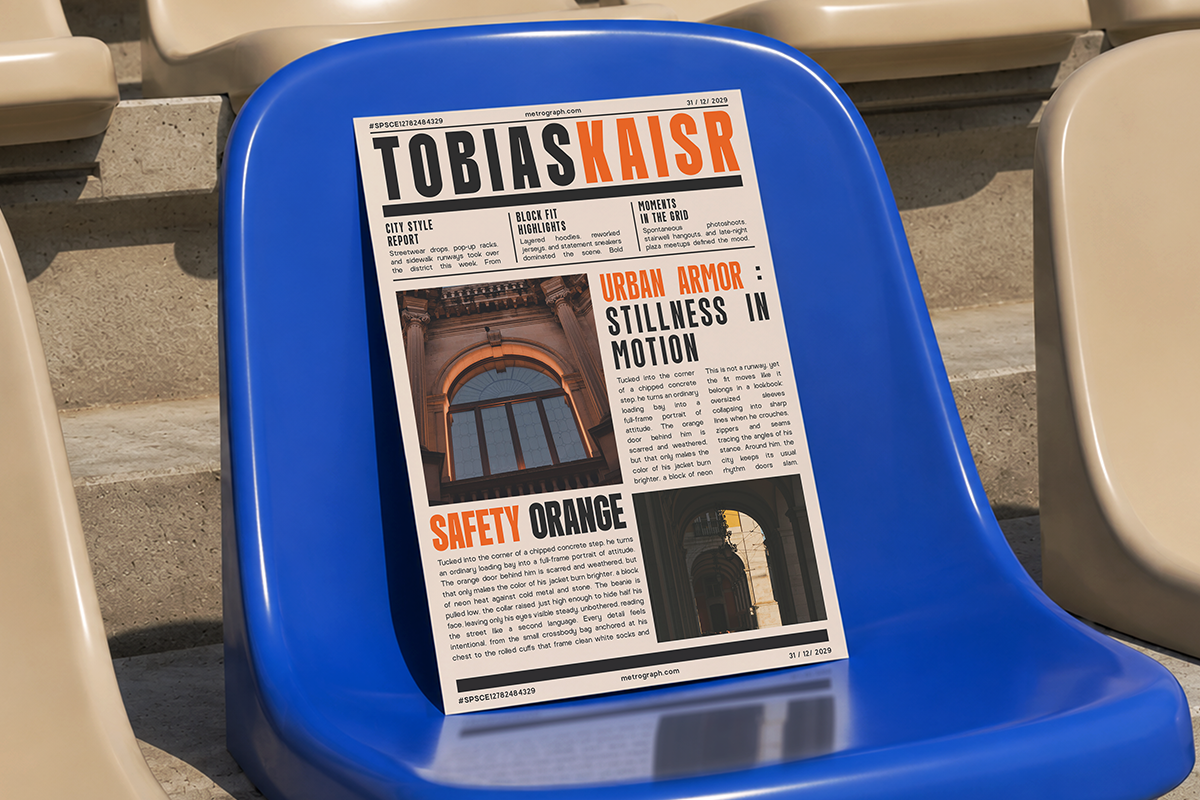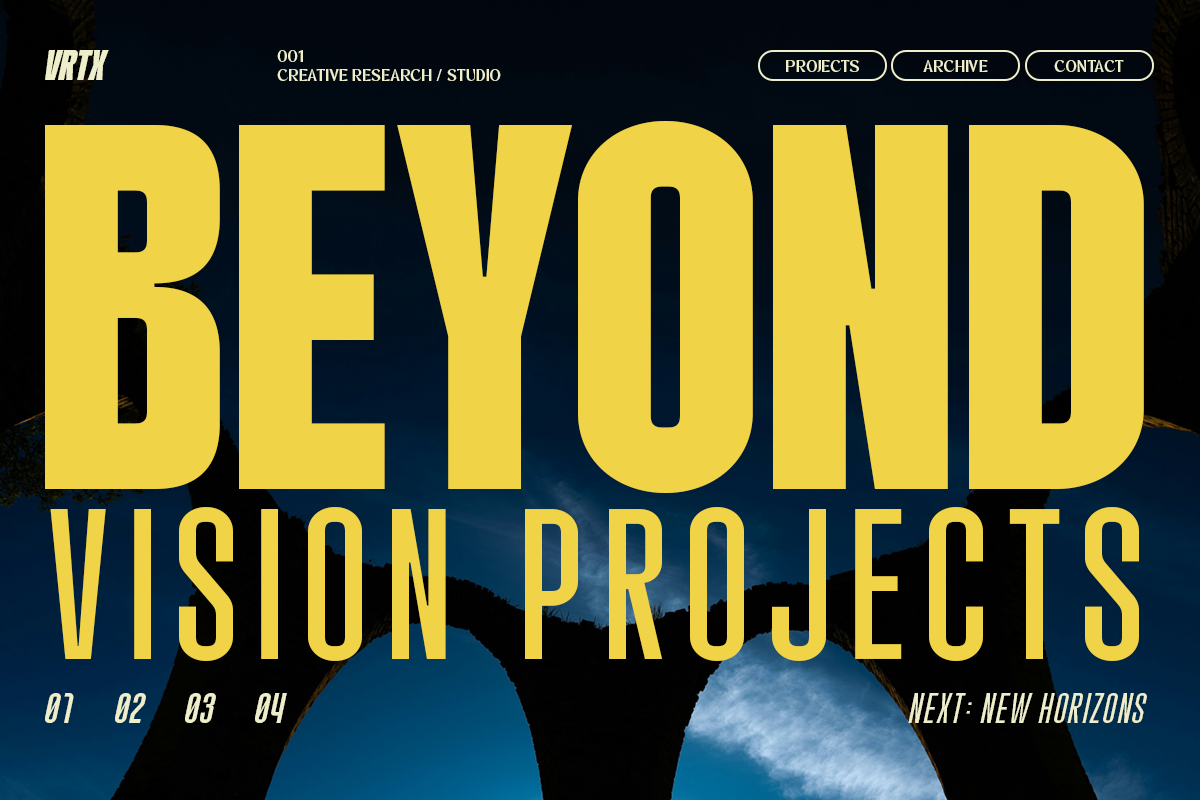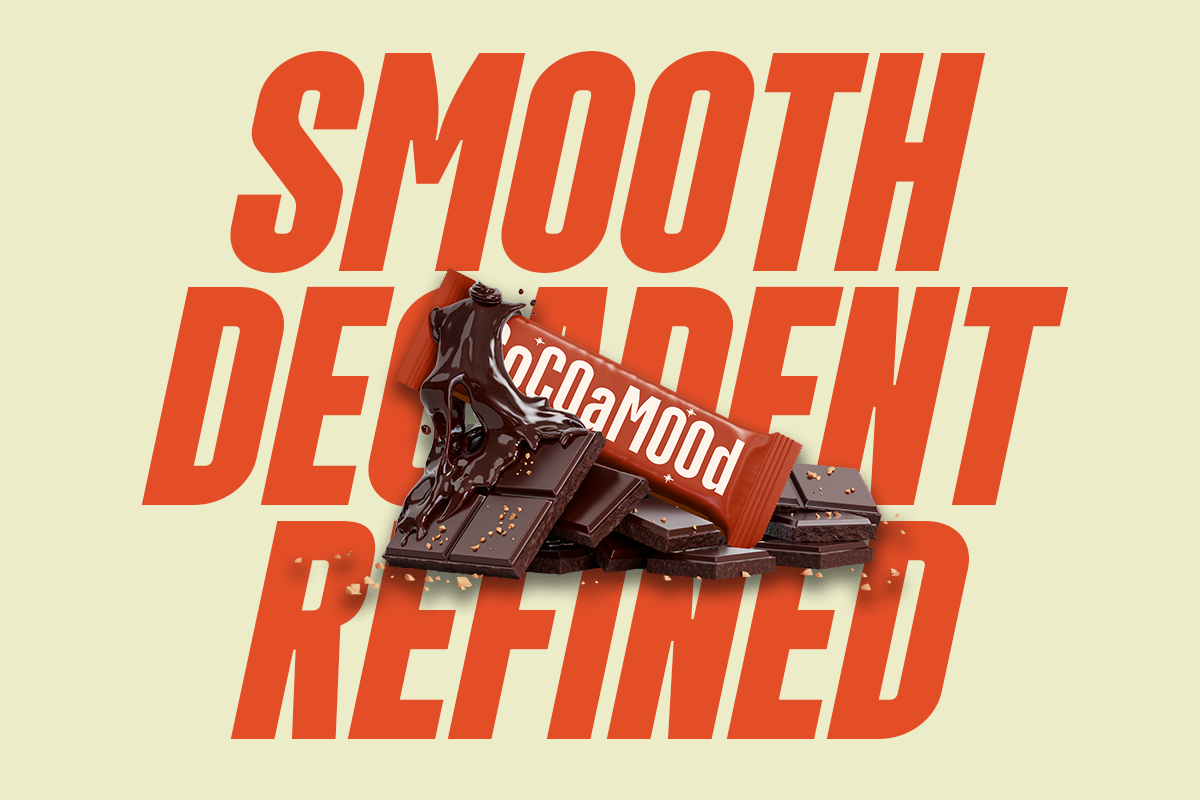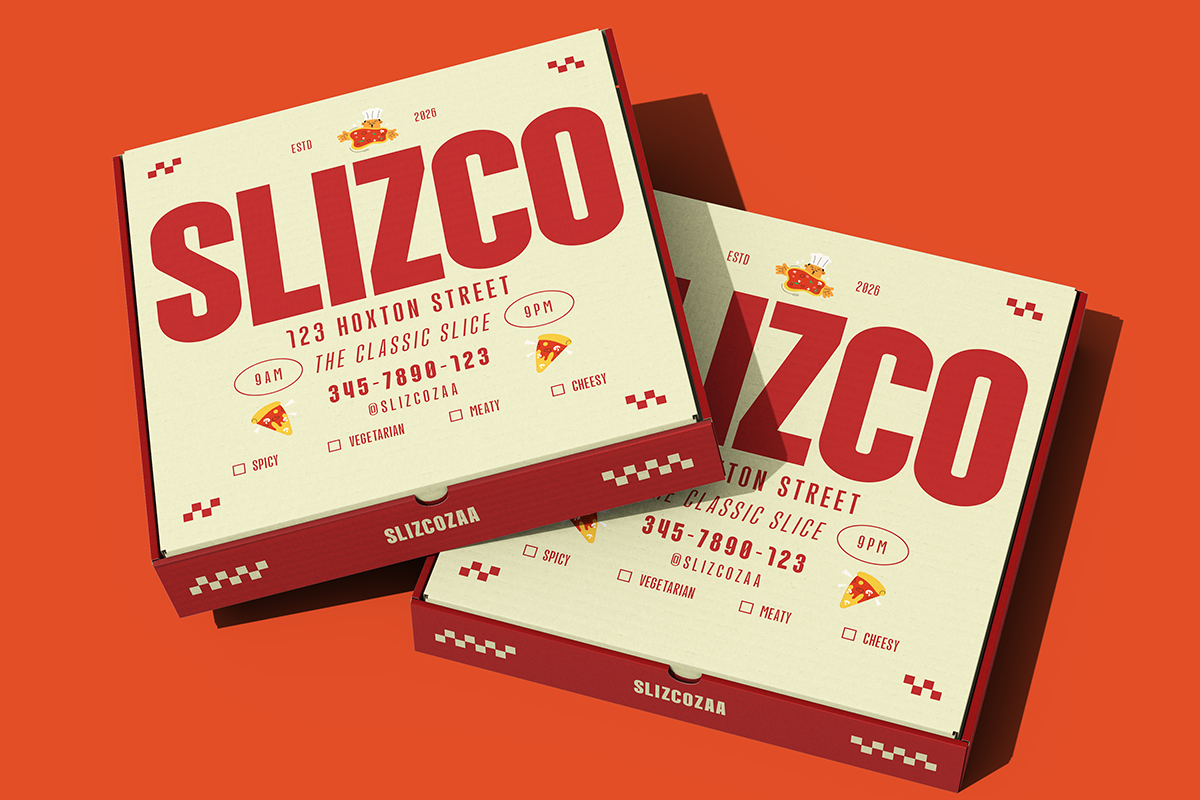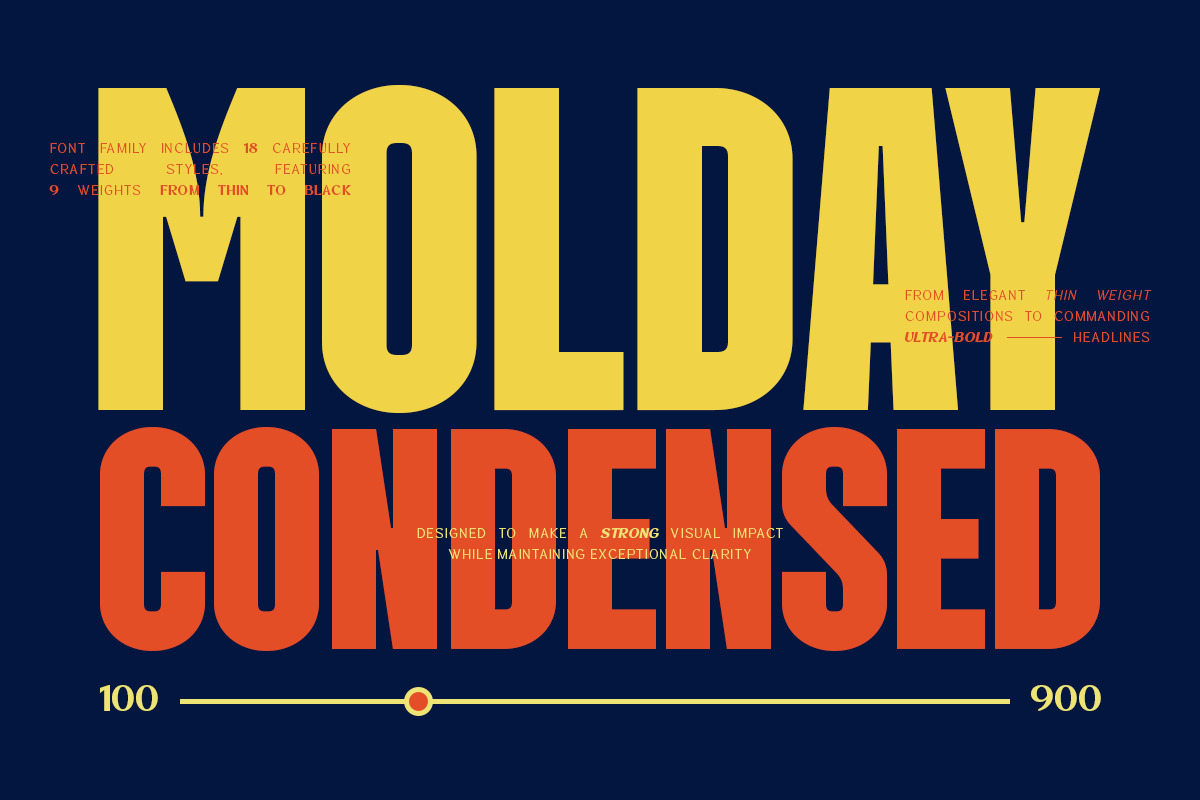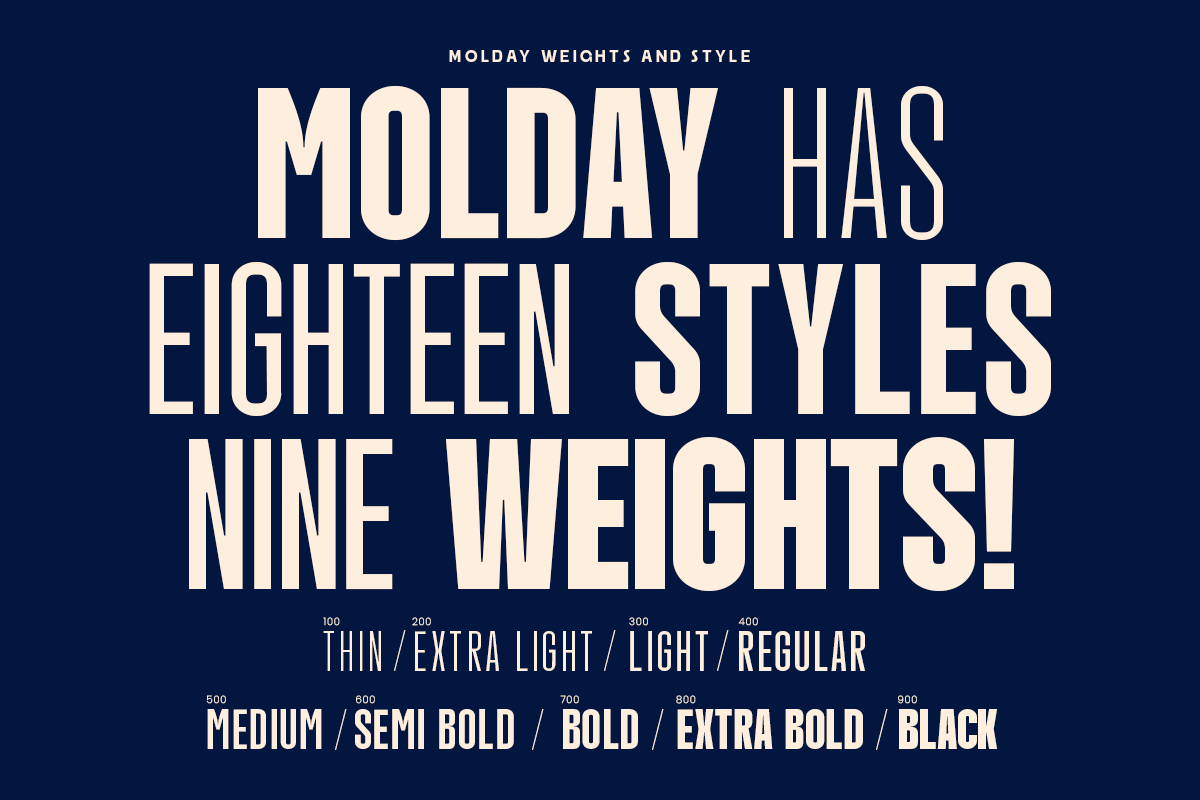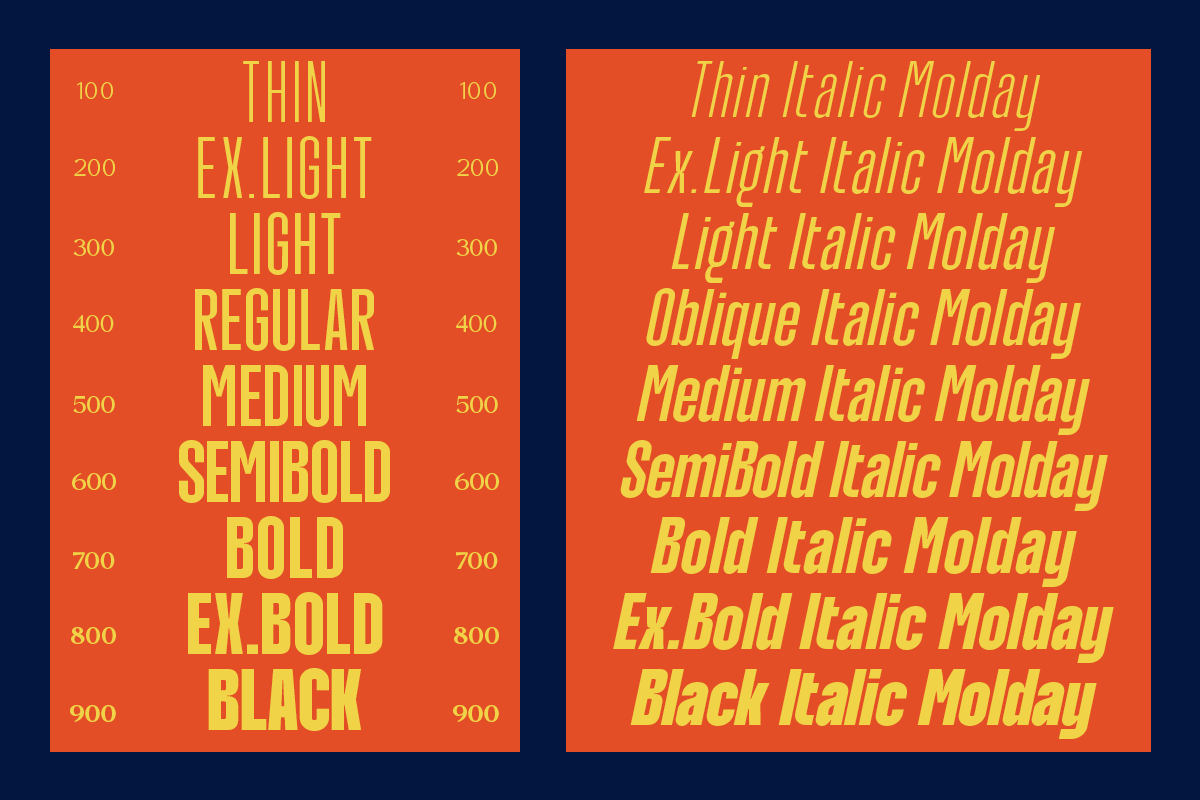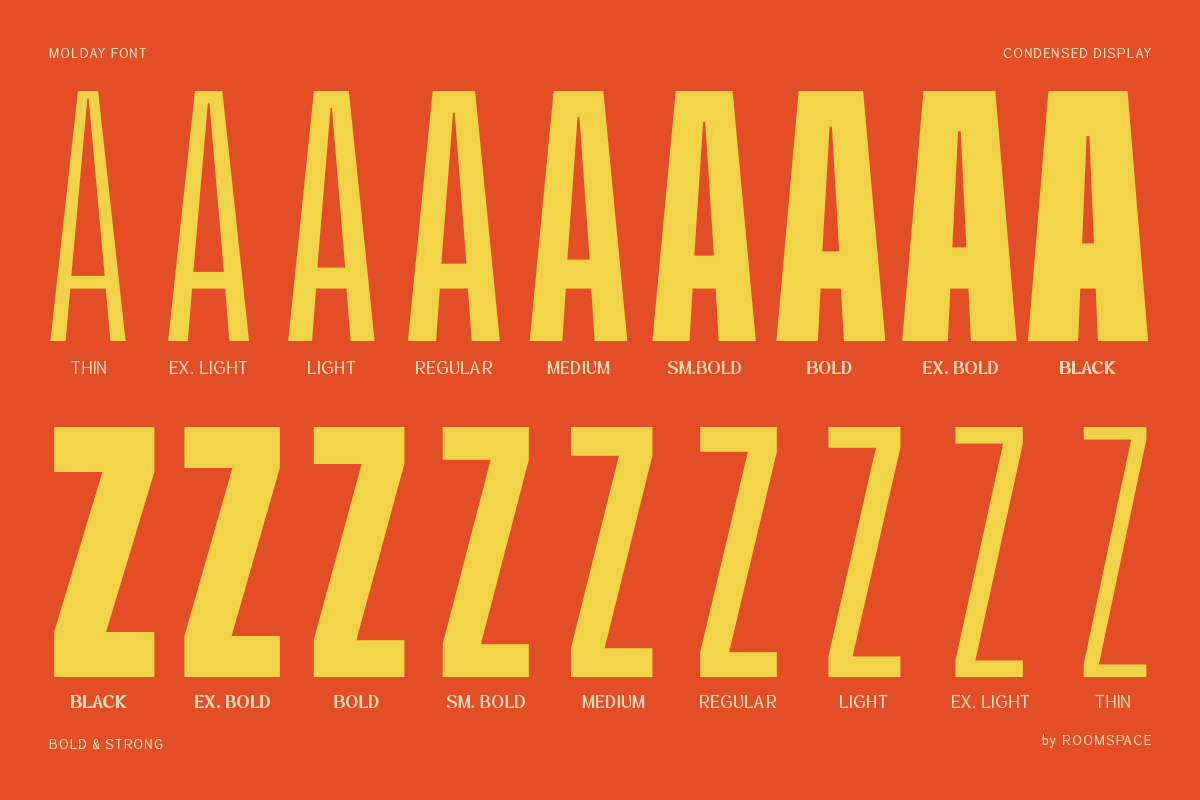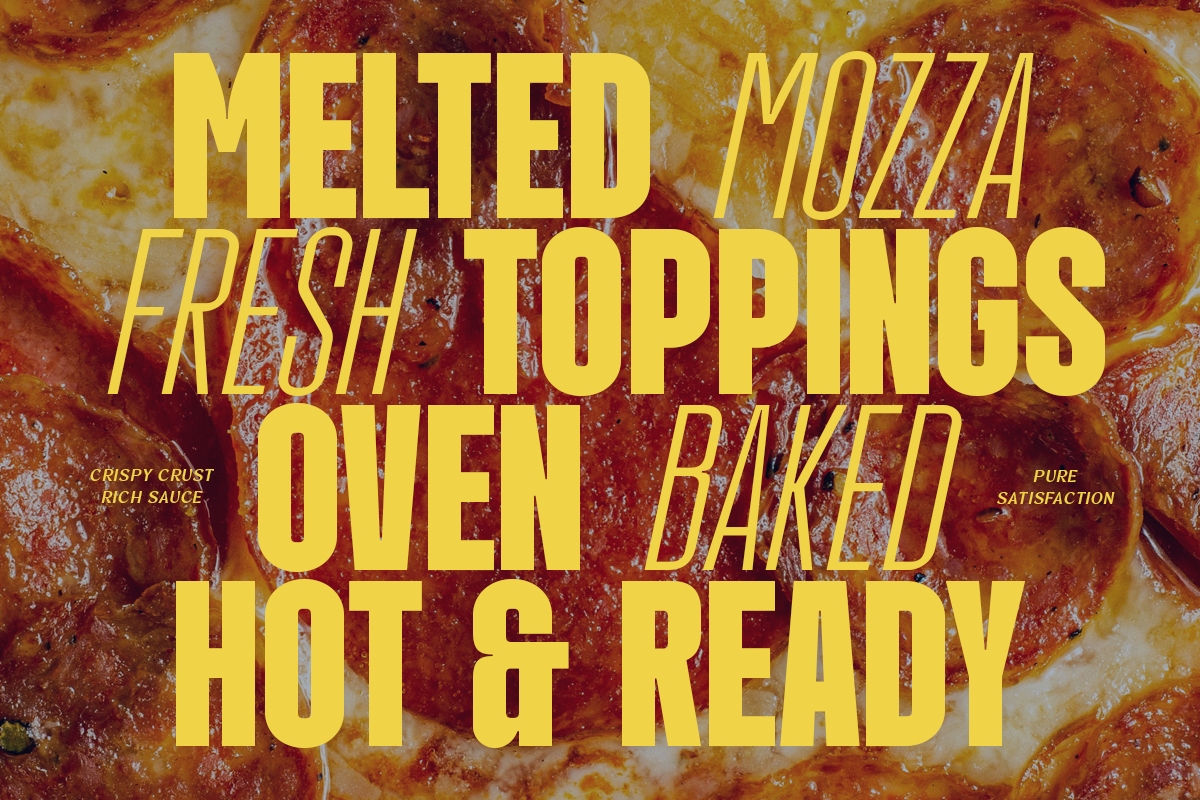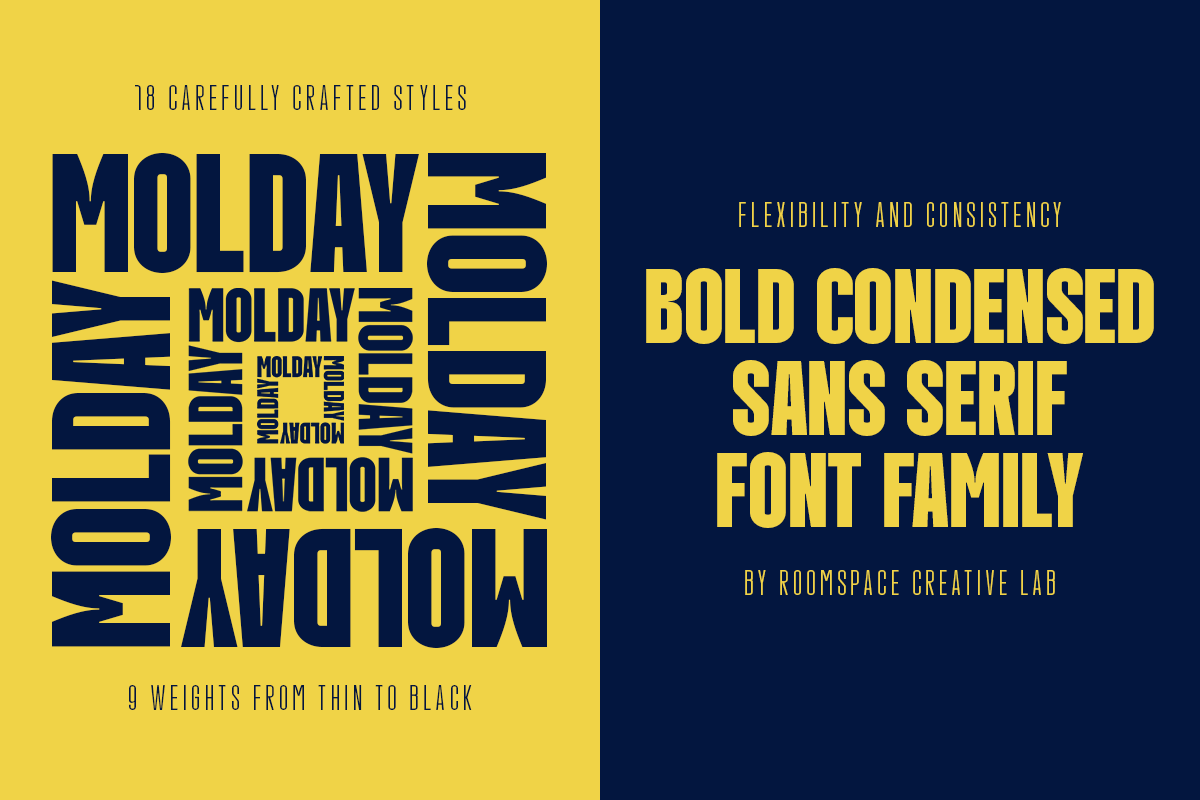
Molday – Modern Font Family
Molday Condensed is a modern condensed sans serif font family designed for bold typography and impactful visual communication. Built with clean proportions and strong vertical rhythm, it delivers outstanding readability while maximizing space in headlines, branding, packaging, editorial layouts, sports graphics, posters, web design, and advertising.
The family includes 18 carefully crafted styles, featuring 9 weights from Thin to Black, each available in both Regular and Oblique. This wide range makes Molday Condensed equally effective for subtle editorial compositions and commanding display typography. Every weight maintains a consistent structure, allowing designers to mix styles seamlessly while preserving a cohesive visual identity.
Whether you're designing restaurant branding, product packaging, magazine covers, event posters, sports campaigns, fashion editorials, website headers, social media graphics, or modern logos, Molday Condensed provides the flexibility to create confident, contemporary designs with a refined condensed aesthetic. Its balanced letterforms and versatile weight system make it an excellent choice for creative professionals seeking a dependable display typeface that performs beautifully across both print and digital applications.